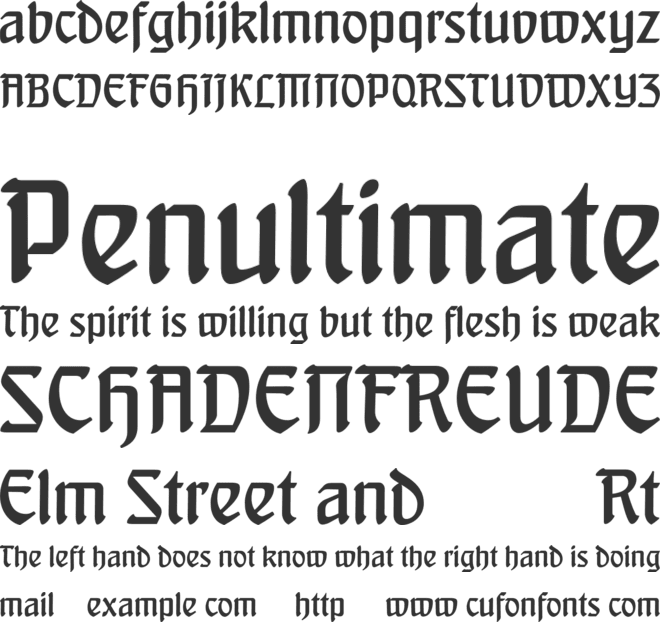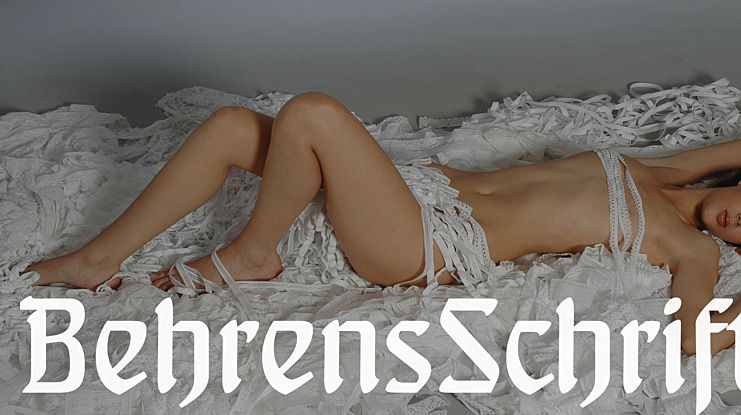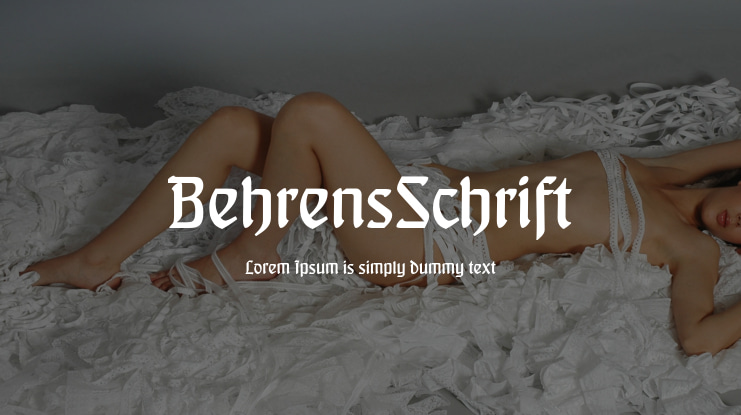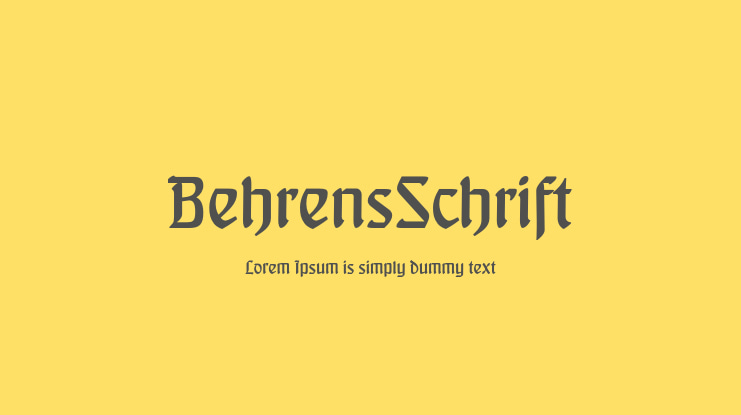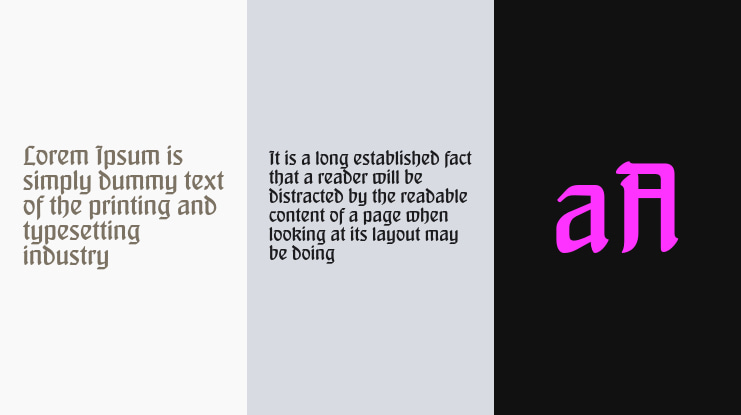
Peter Behrens renowned art nouveau type from 1902 with ornaments. Newly revised and neatly digitalized
In 1902, Peter Behrens (18691940), architect, designer and typographer, created a new German type which became very successful very quickly for the Rudhardsche Gießerei (foundry which later became Gebr. Klingspor AG) in Offenbach am Main. It served, for example, as the official German type for the world expositions in 1904 and 1910.
Behrens himself writes about the development of this type ...For the actual form of my type, I took the technical principle of the Gothic script, the stroke of the quill feather. The proportions of height and width and the boldness of the strokes of the Gothic letters were also decisive for me in producing a German character. A cohesive character could be hoped for by avoiding all non-necessities and by strictly carrying out the design principle of holding the quill at an angle *
Behrens Typeface is still sought after as is proven, at the very least, by a few poorly digitalized free fonts which can be found on the WWW.
A project about the modern use of historical industrial buildings in Germany motivated me to take a closer look at the work of Peter Behrens. With the type of Peter Behrens, the ideal display type exists; unfortunately, it can only be found in an absolutely unacceptable quality.
Even D. Stempel GmbH, which still today casts the types of the former Gebr. Klingspor AG (formerly Rudhardsche Gießerei) for manual typesetting, shows in a digitalized specimen sheet of typefaces a neat version of the Behrens Typeface, but still not one which meets todays quality standards. Reason enough for ingoFonts to create the perfect Behrens Typeface.
Voilà here it is: the new, revised, original Behrens Typeface from 1902, first newly and neatly drawn and digitalized in detail, and then expanded for all European languages with the Latin font system.